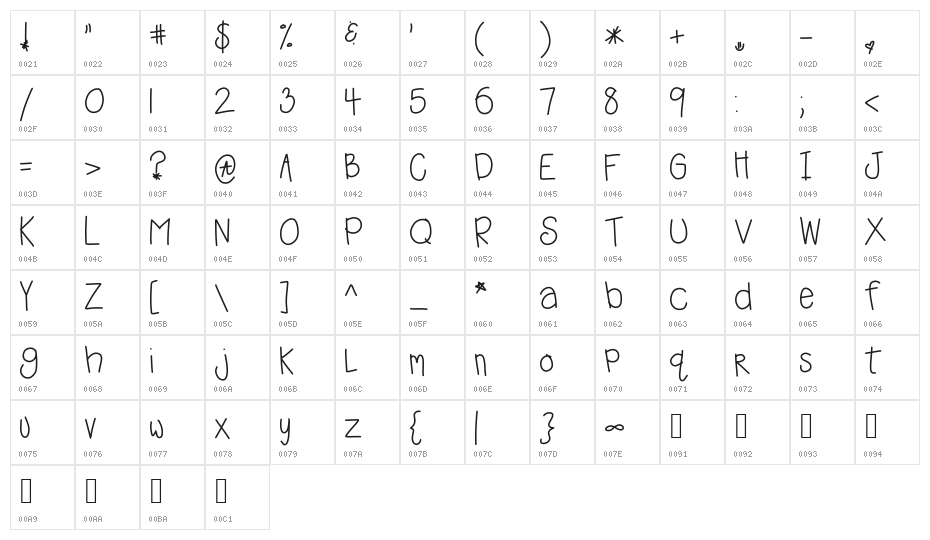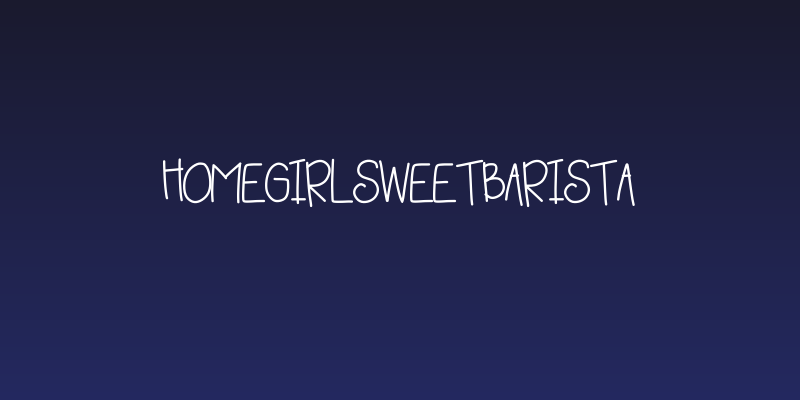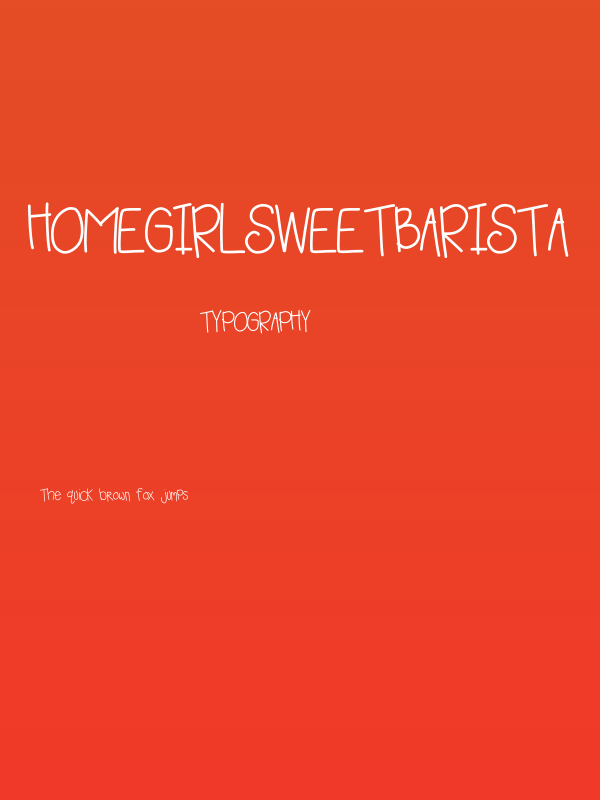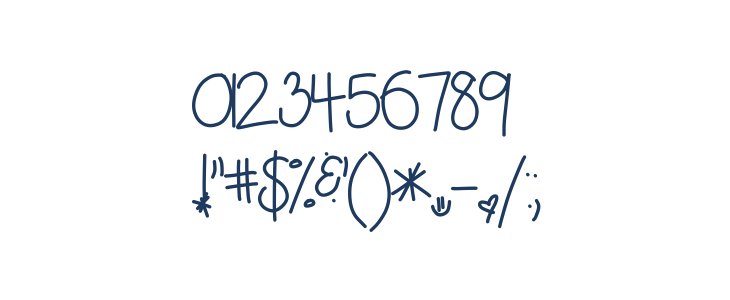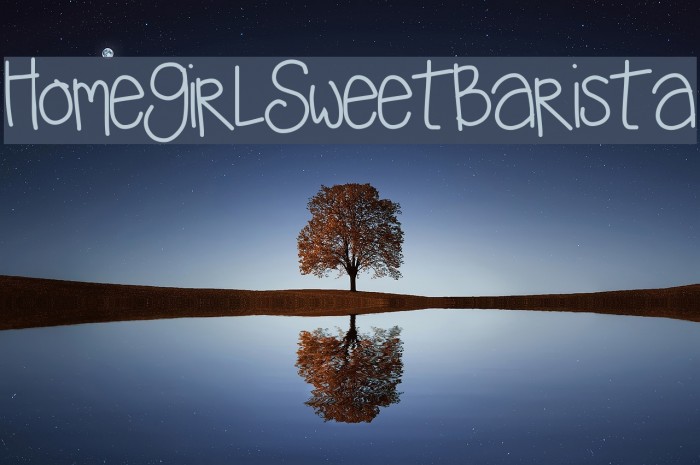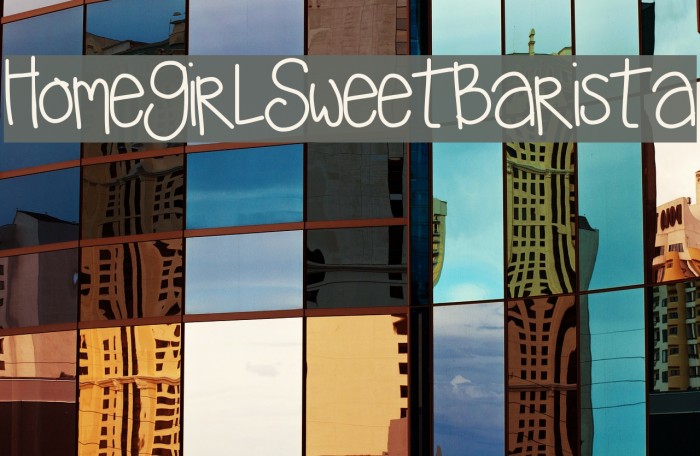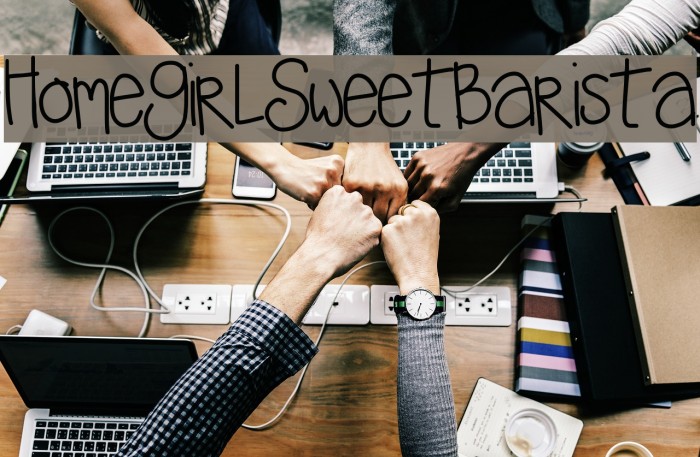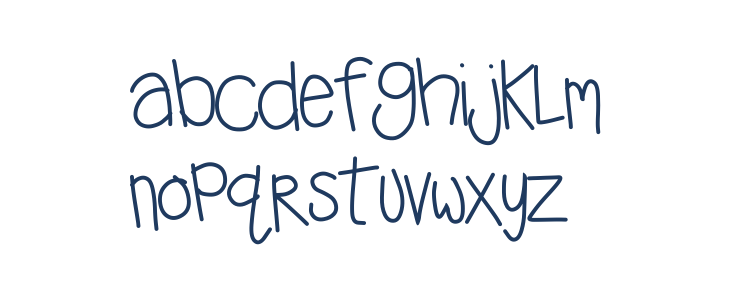
HomegirlSweetBarista Font
HomegirlSweetBarista Description
This font features a playful and casual handwritten style, characterized by its tall, narrow letters with a slight slant. The strokes are consistent in width, giving it a uniform appearance, while the rounded edges add a friendly and approachable feel. The uppercase and lowercase letters maintain a cohesive look, with the lowercase letters slightly smaller in height. Numbers and special characters are designed to match the overall style, ensuring versatility in various applications. The font's informal nature makes it ideal for projects that require a personal touch.
| Proposed Projects | Ideal for greeting cards, personal blogs, children's books, and casual branding. |